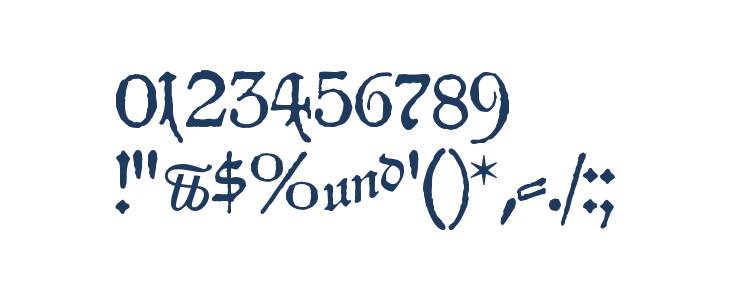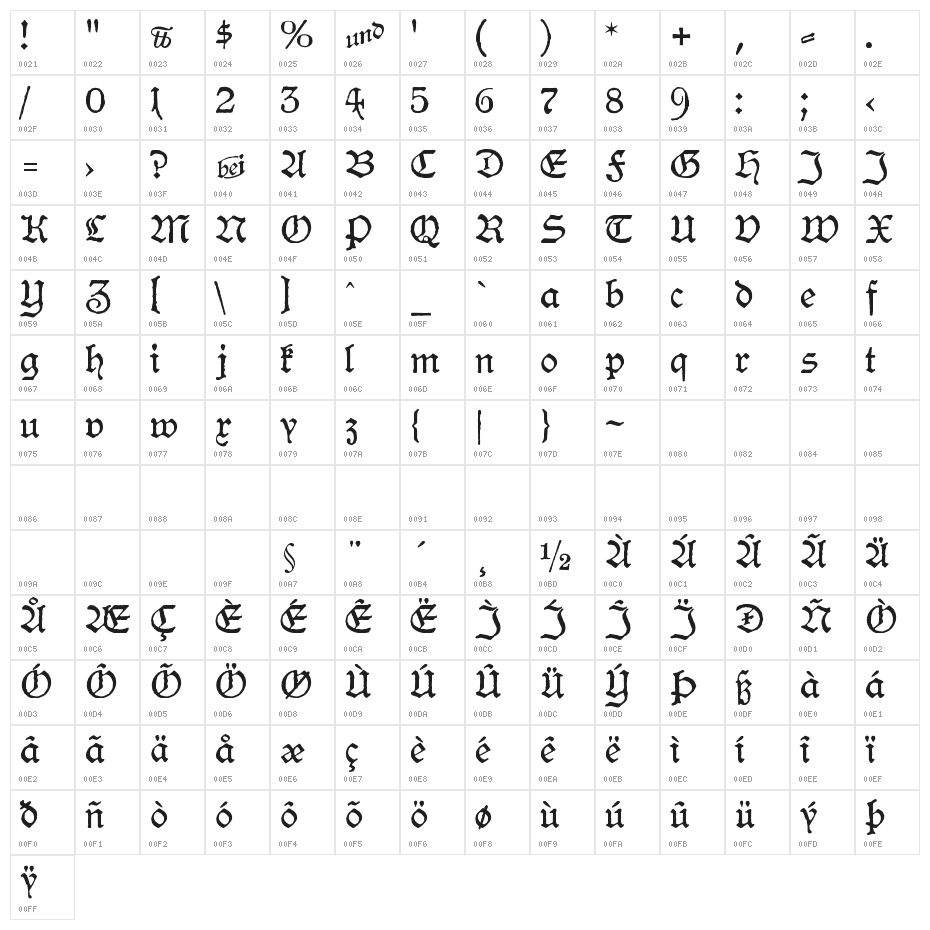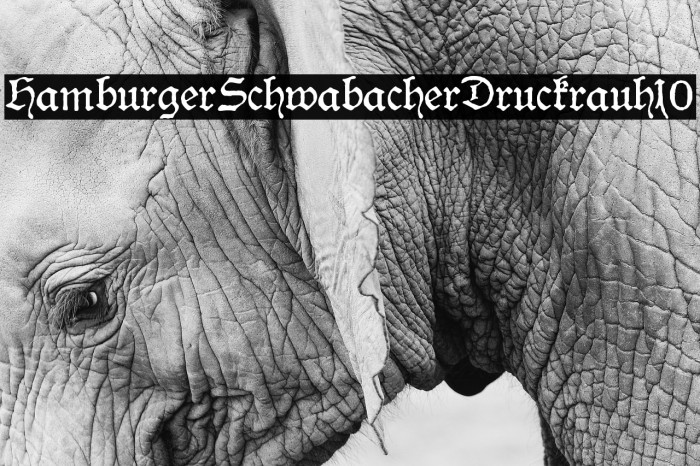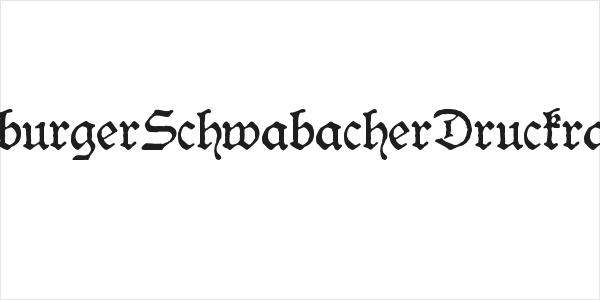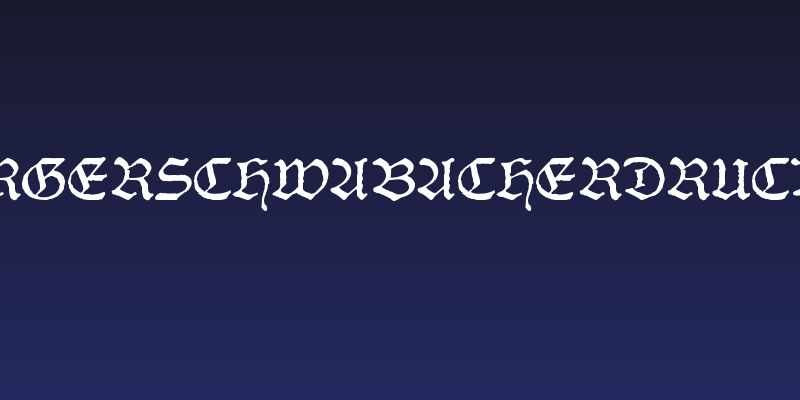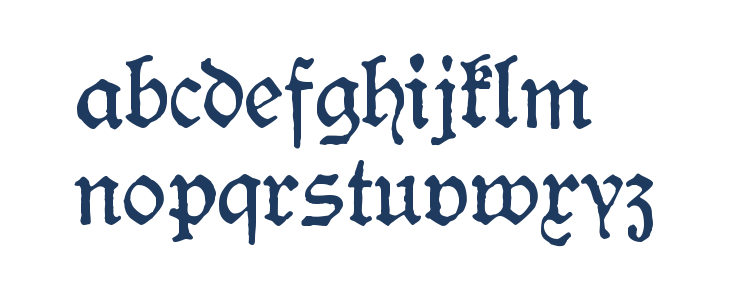
HamburgerSchwabacherDruckrauh10 Font
HamburgerSchwabacherDruckrauh10 Description
This font exhibits a traditional and historical style, reminiscent of medieval script. The characters are ornate with distinct flourishes and sharp edges, giving it a gothic appearance. The uppercase letters are bold and commanding, while the lowercase letters maintain a consistent flow with intricate detailing. Numbers and special characters follow the same stylistic approach, ensuring uniformity across the font. The overall design is highly decorative, making it suitable for projects that require a touch of antiquity or historical authenticity.
| Proposed Projects | Ideal for historical documents, fantasy-themed designs, book covers, or any project requiring a medieval aesthetic. |